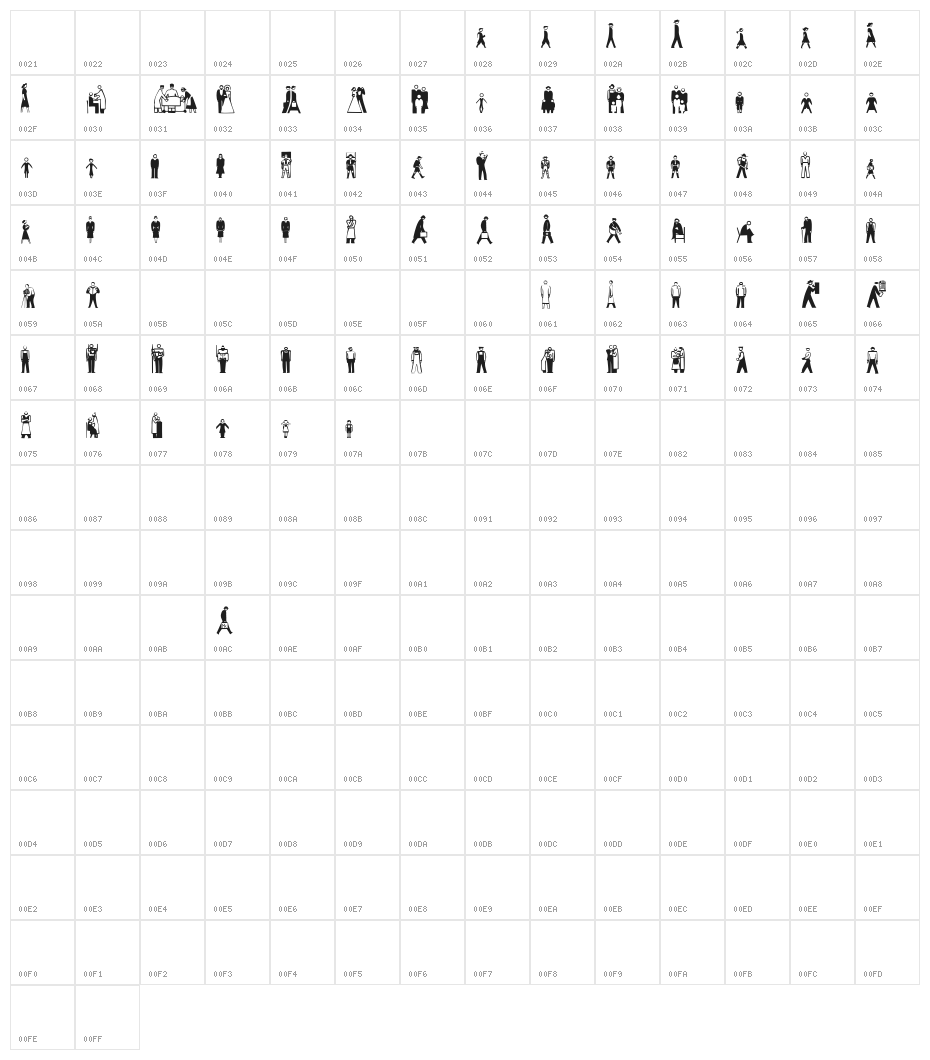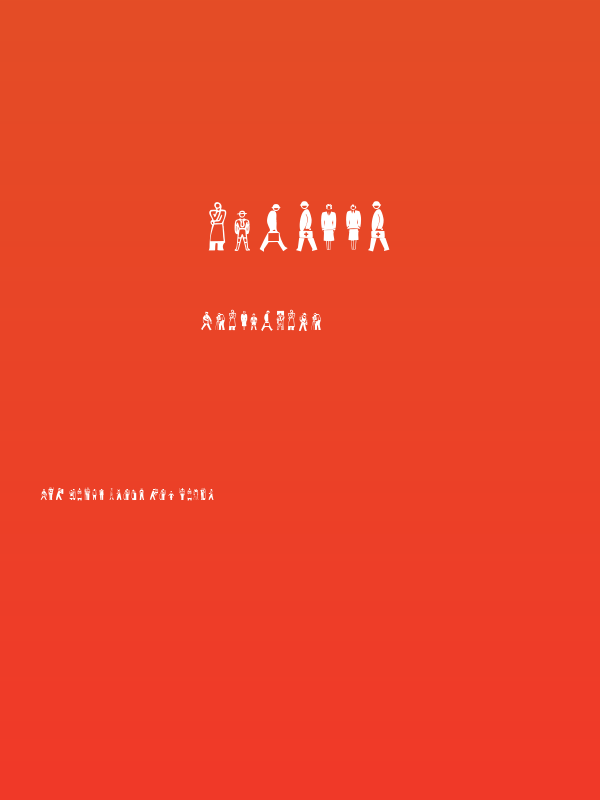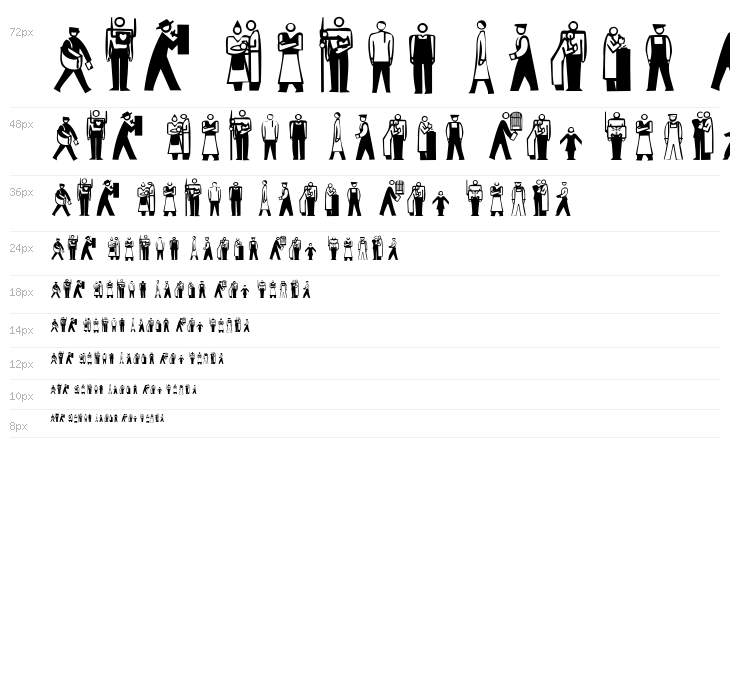
Persons Font
Persons Description
A set of pictogram-style icons depicting various human figures and activities, using simple geometric shapes and minimal detail for clear visual communication.
| Overall Style | Modern, Minimalist |
| Use Case | Icons, Signage, Infographics |
| Proposed Projects | Wayfinding signage, infographics, instructional materials, public information graphics, app UI icons. |